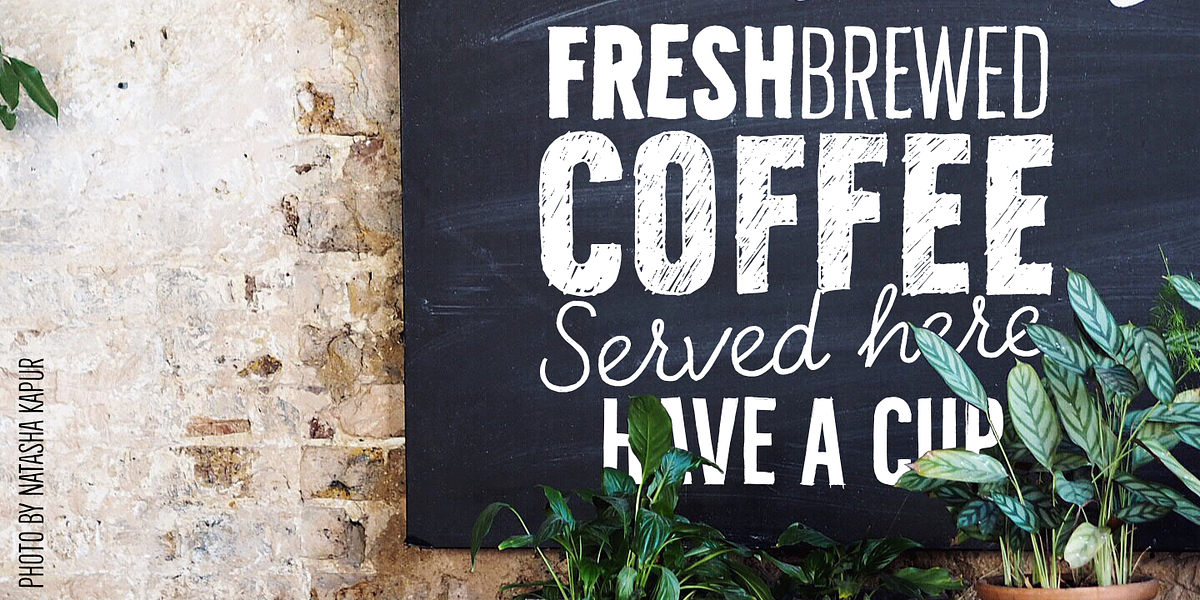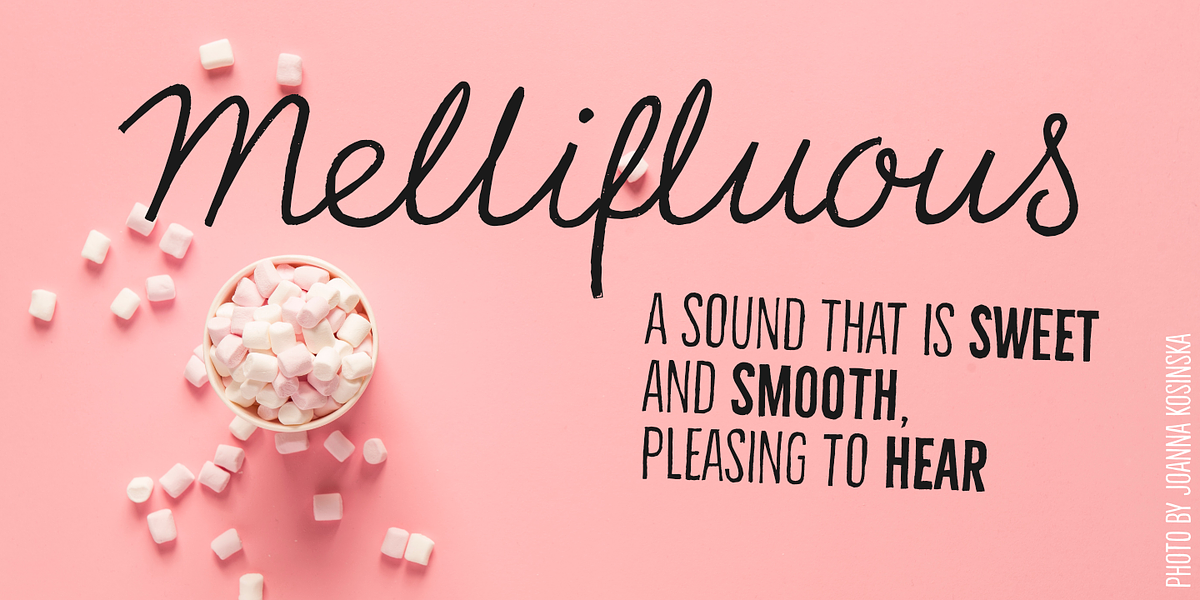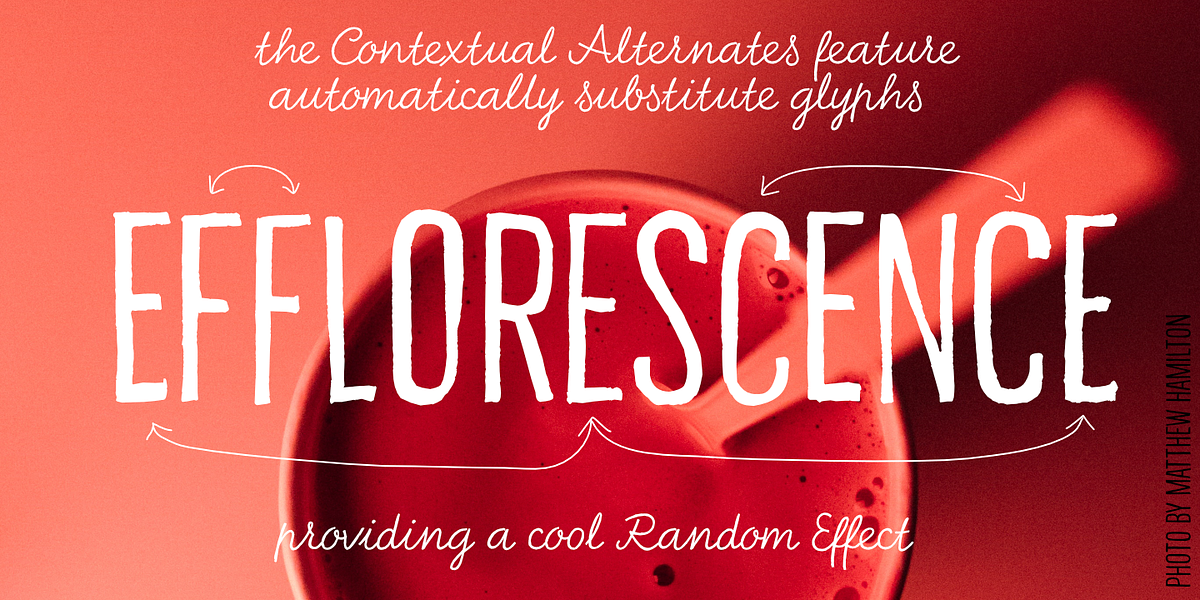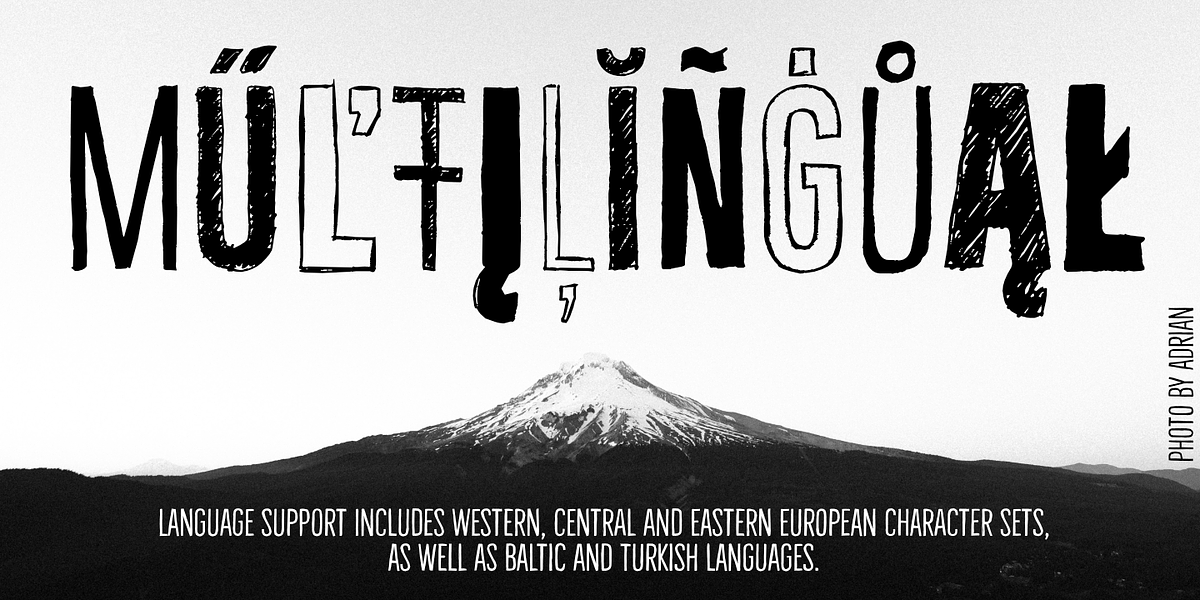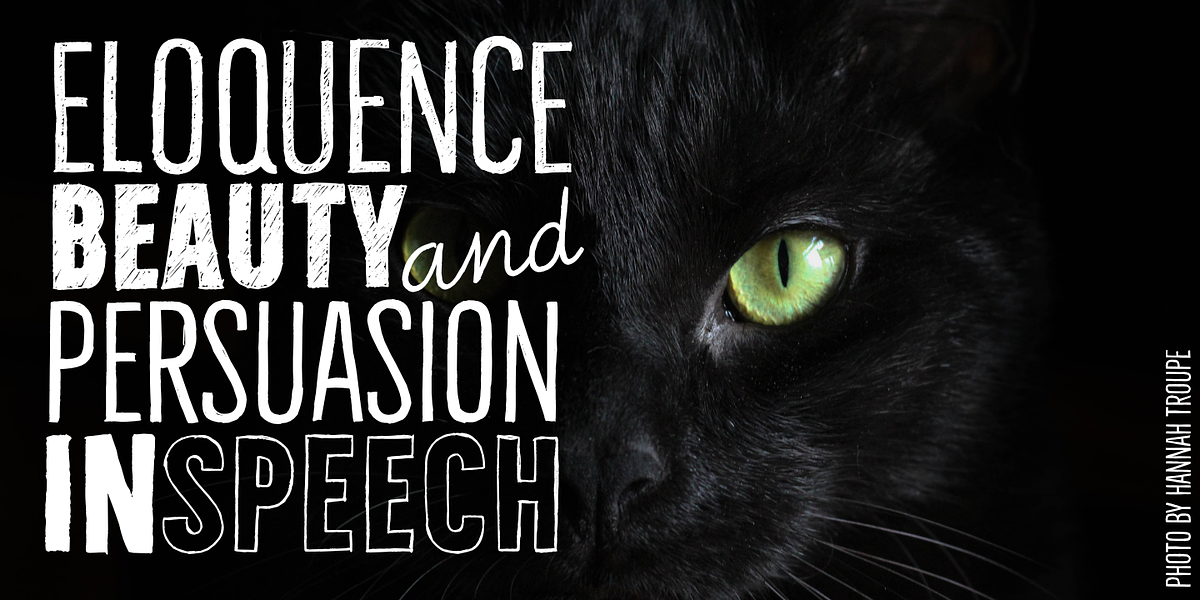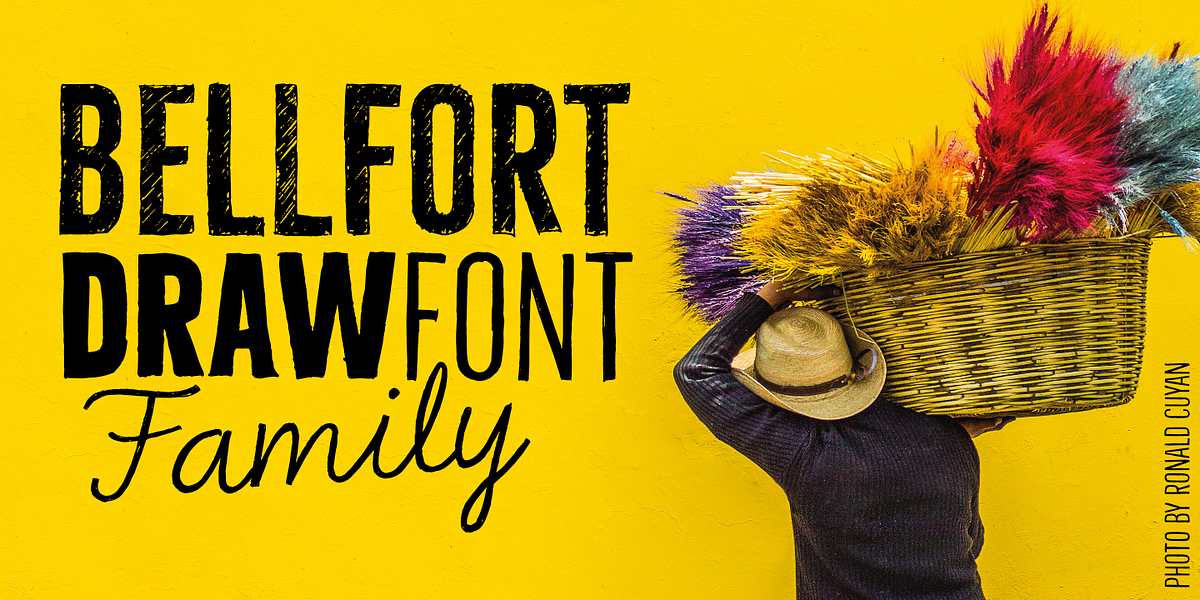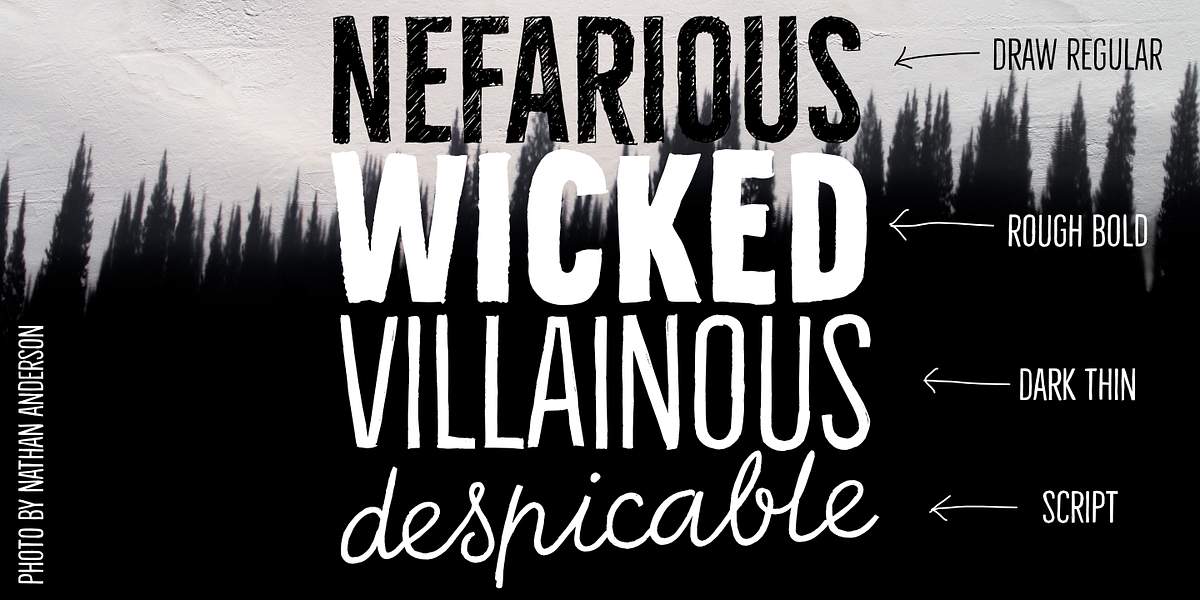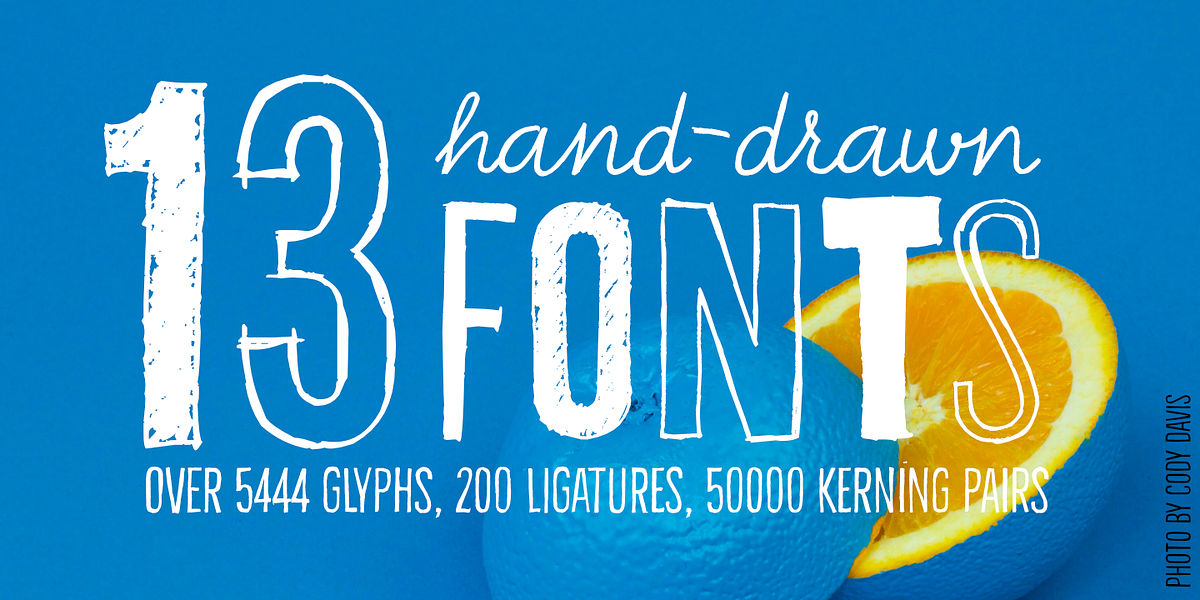
Bellfort Draw
The Bellfort Draw family is a hand-drawn script font with 5 subfamilies: Regular, Rough, Hollow, Dark, and Script. Each subfamily contains up to three font weights. It features automatic contextual alternates for a natural handwritten look.